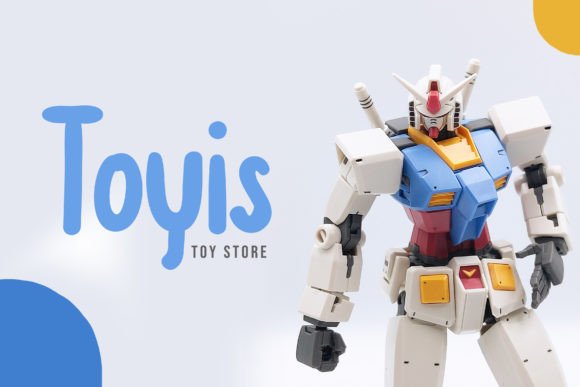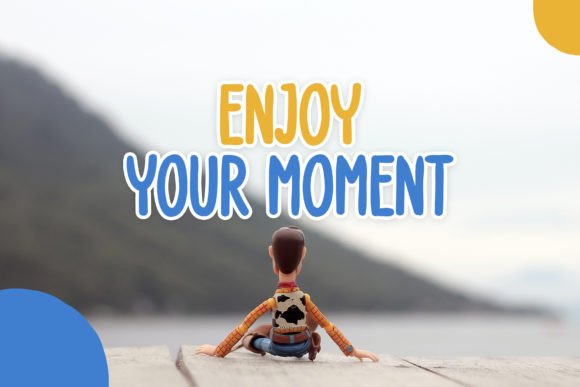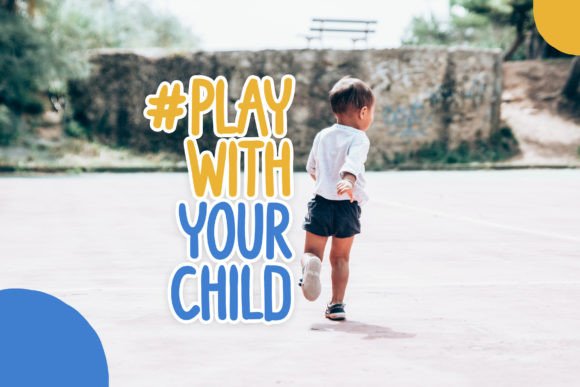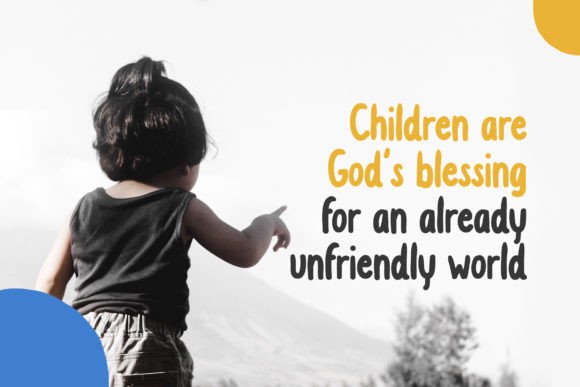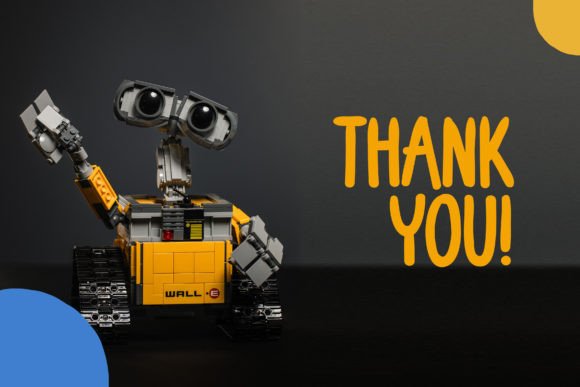
Introduction to Kinod Font
Kinod is a fun and playful display font with cool, natural handwriting.
This font is perfect for greeting cards, invitations, posters, baby clothes, book covers, quotes, logos, presentations, headlines, etc .
Kinod Font offers exceptional quality and versatility, making it a valuable addition to your design toolkit. Whether you’re creating for personal projects or commercial use, Kinod Font delivers professional results.